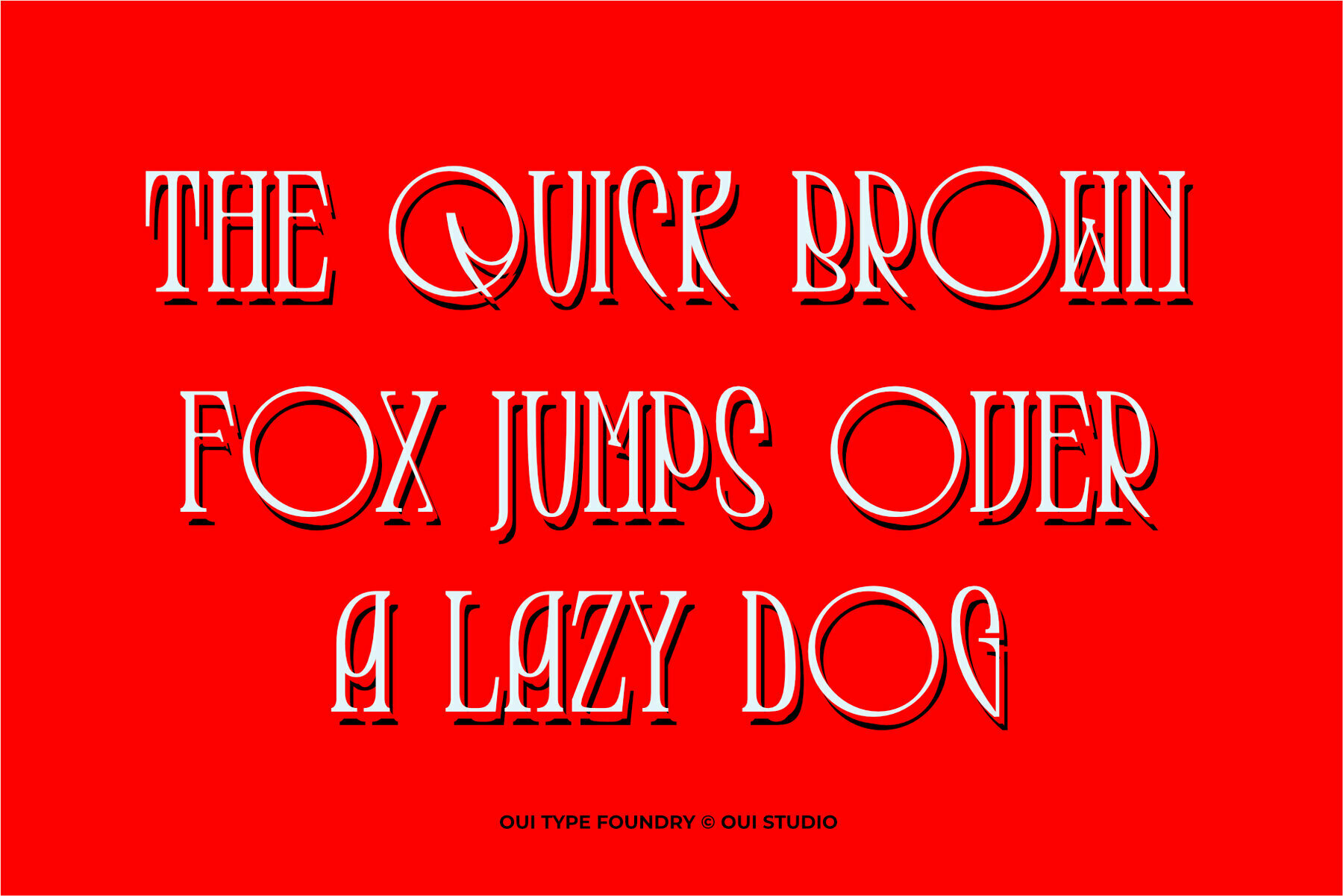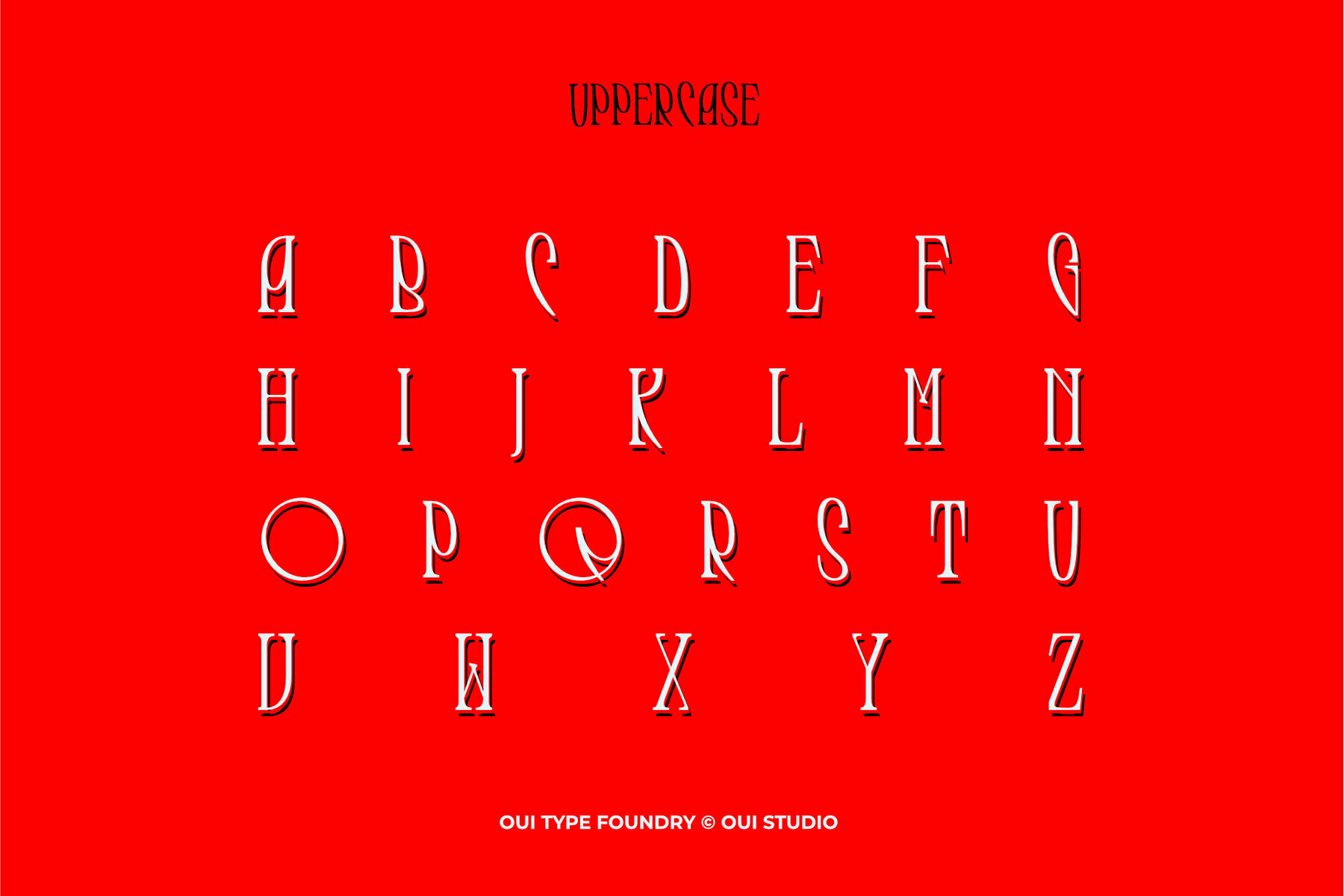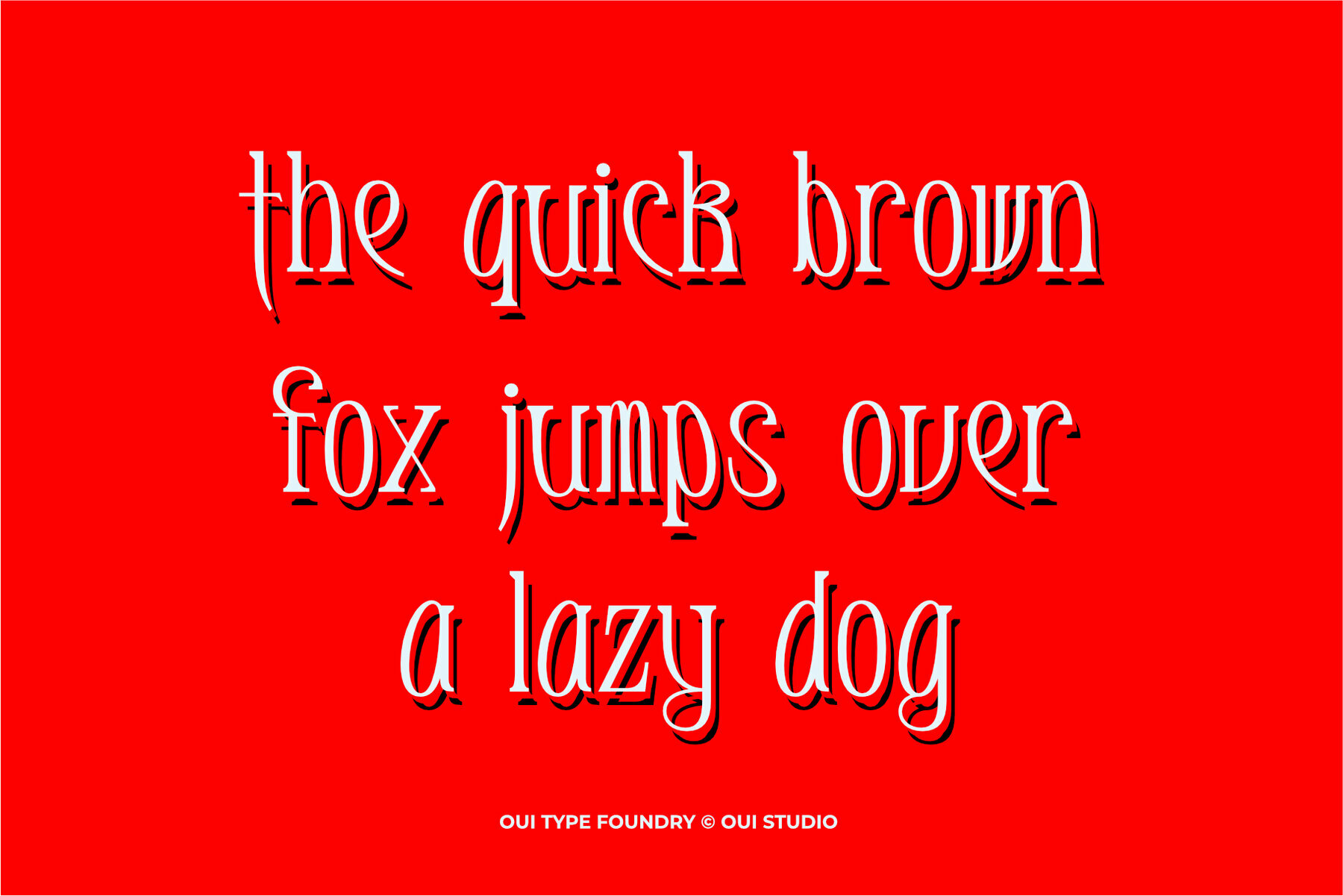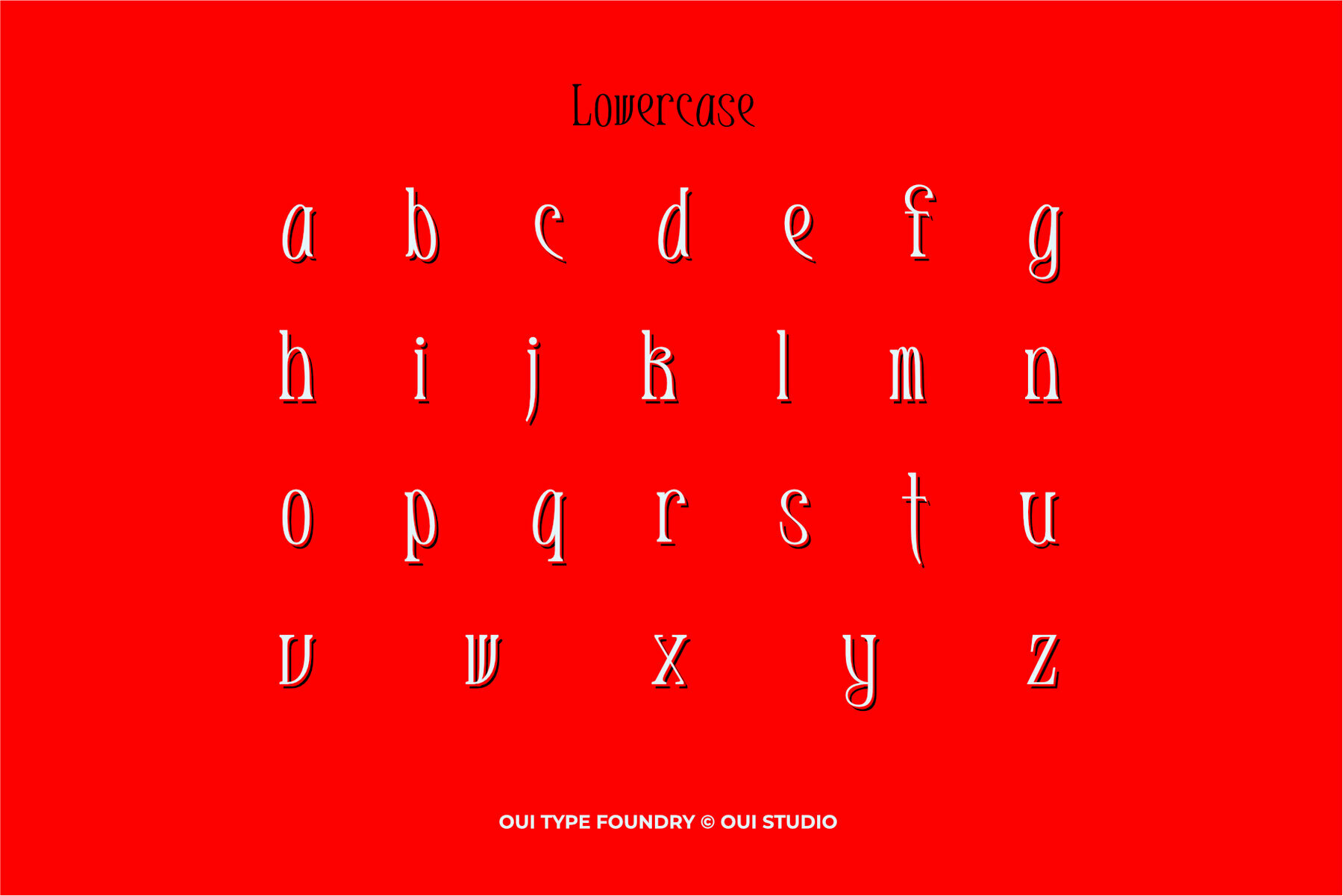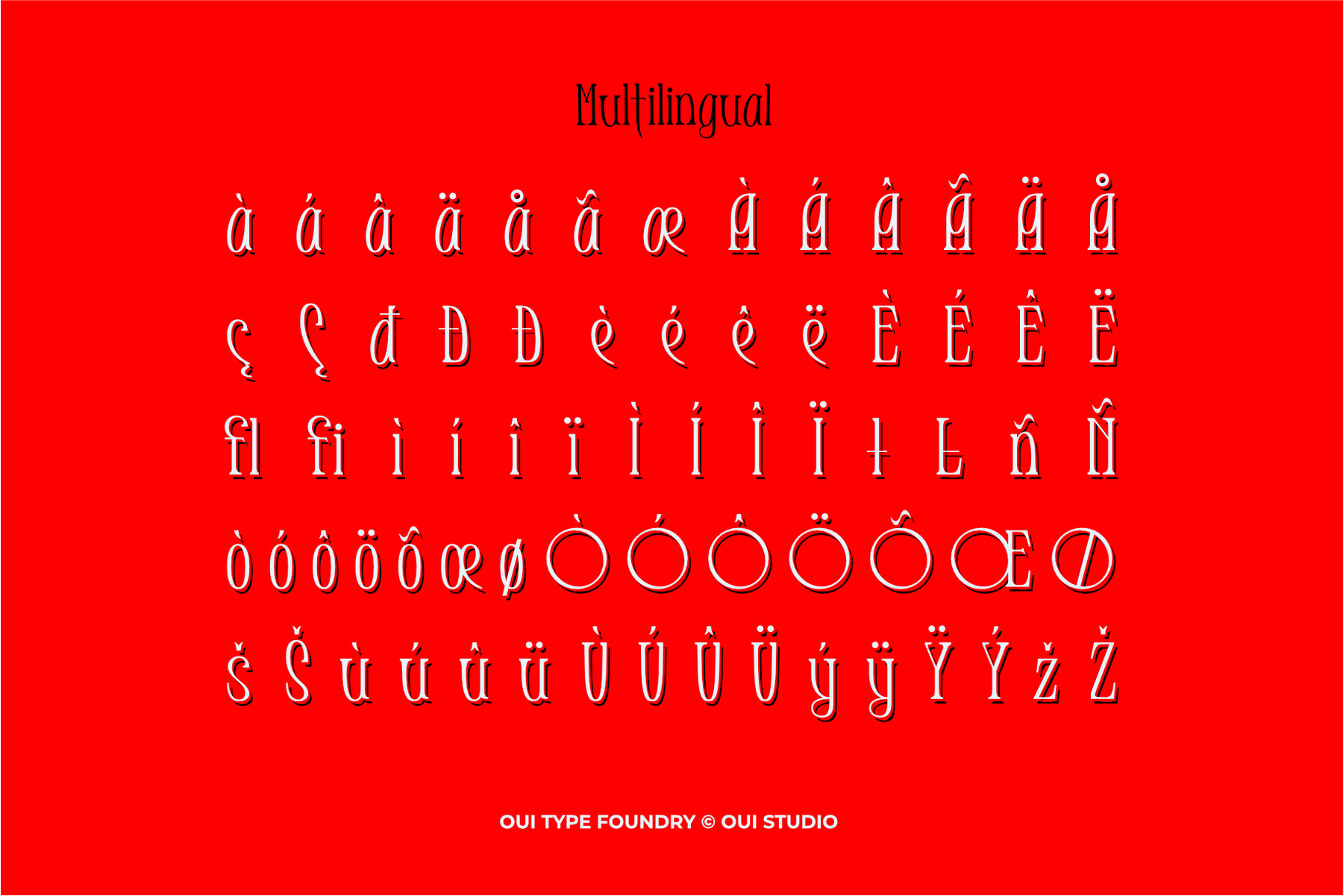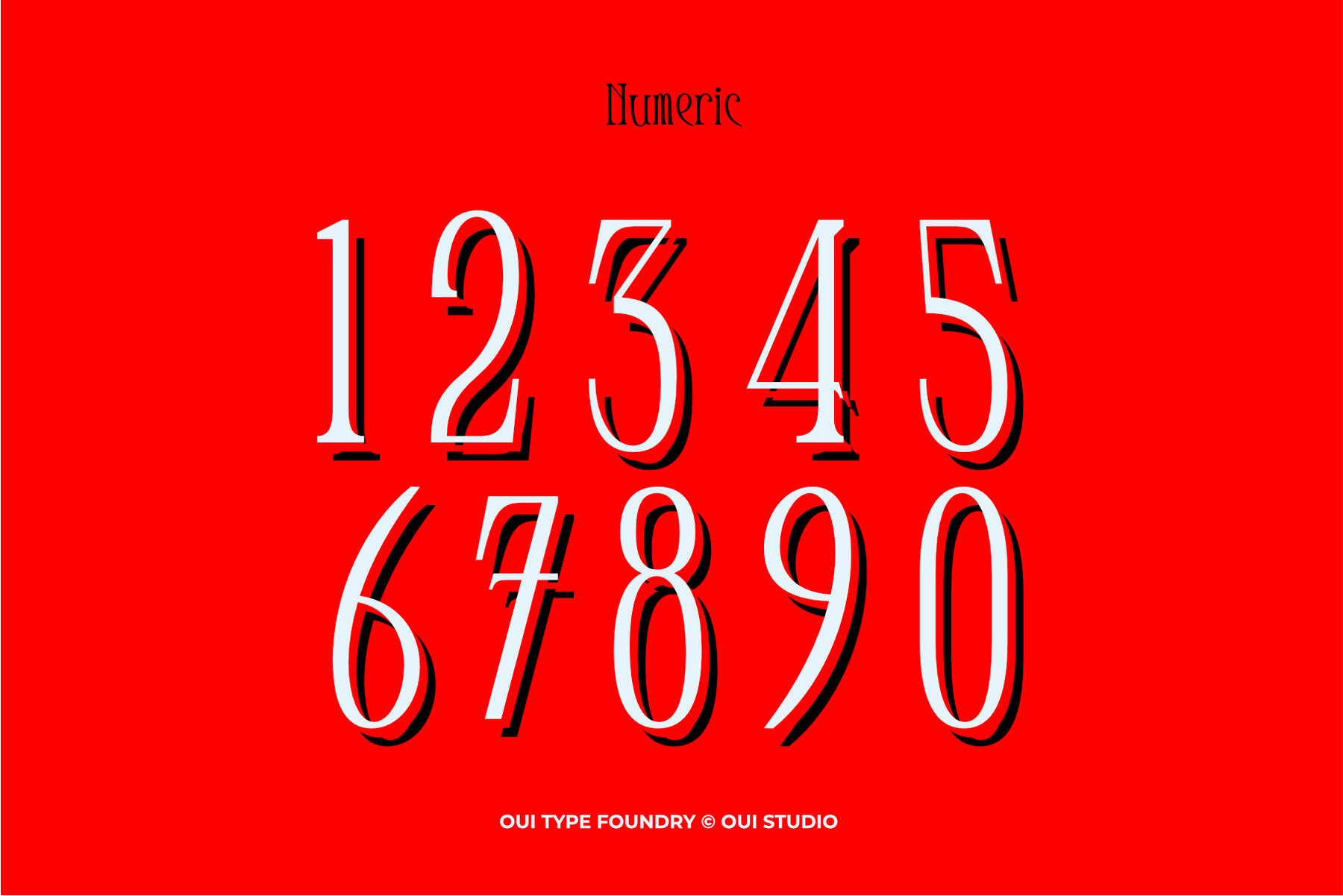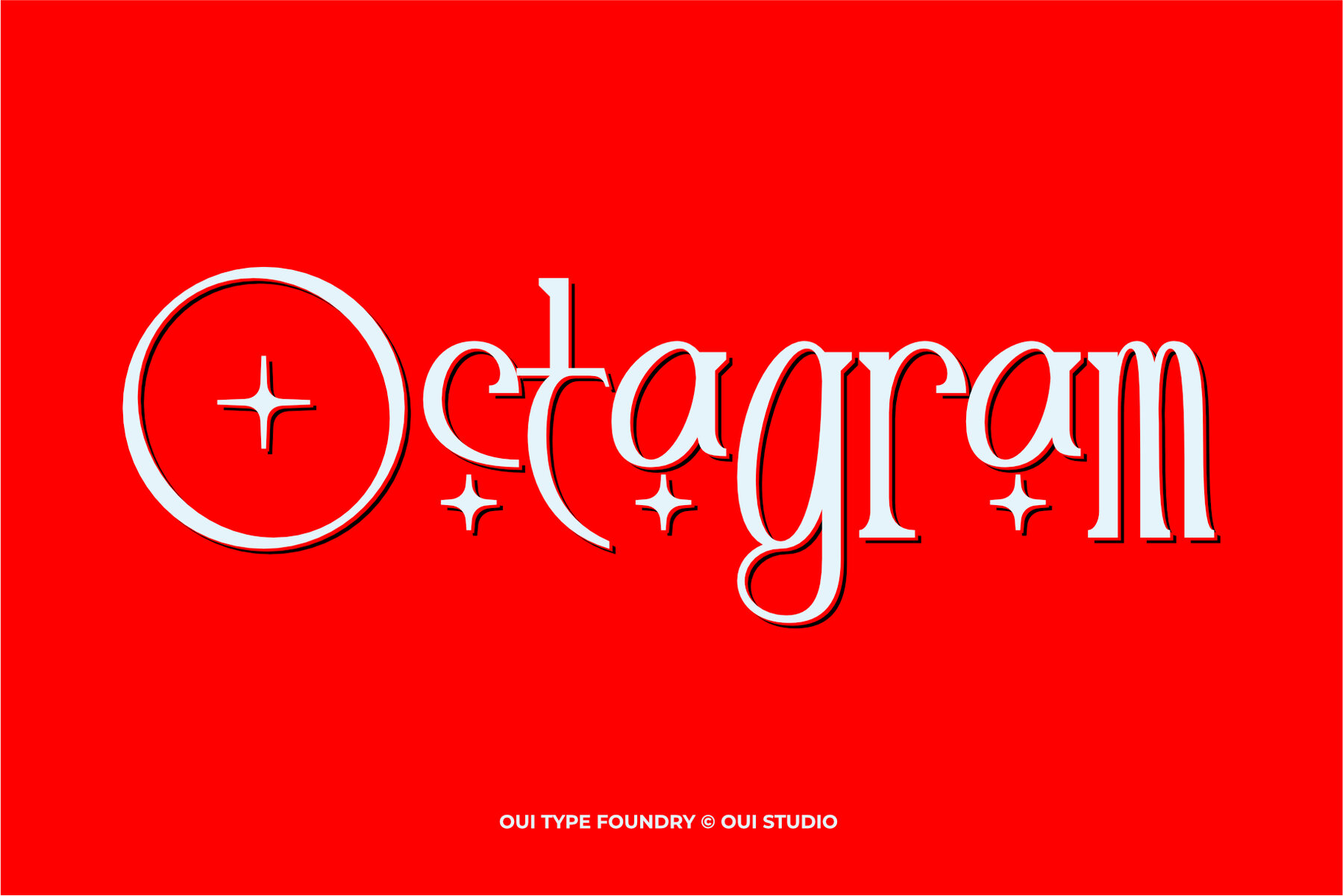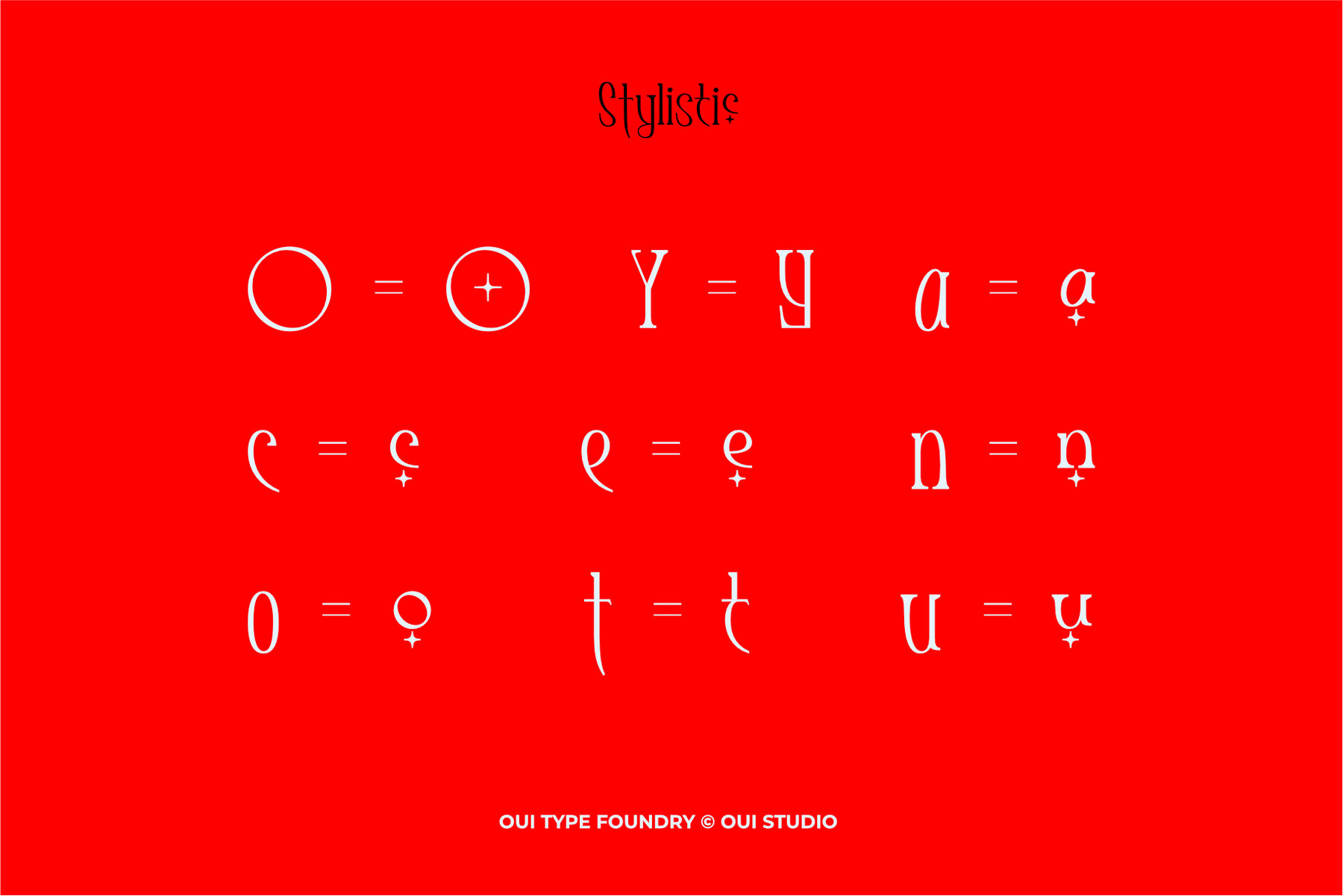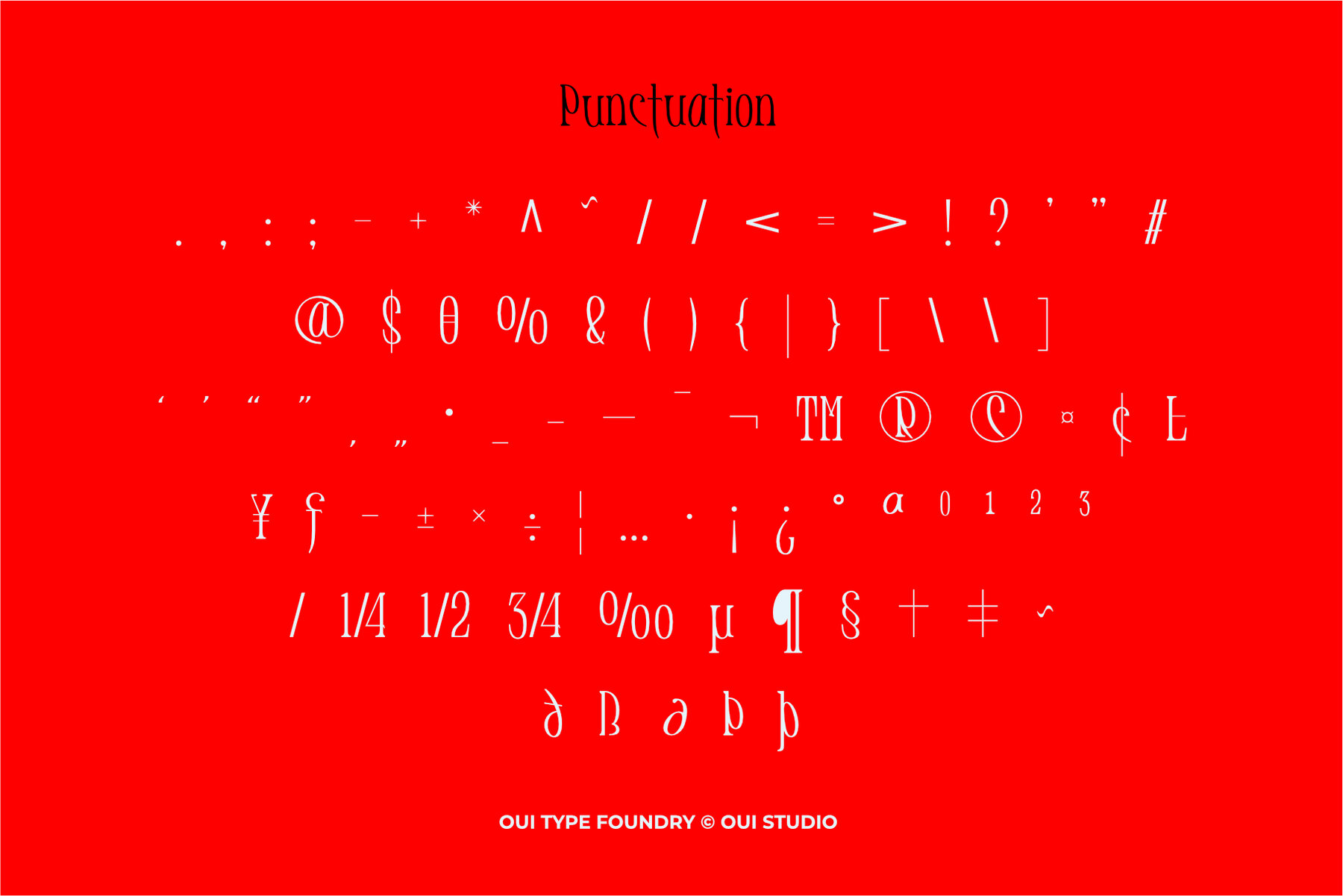
Tyrant Font
Tyrant Regular
Introducing Tyrant, a unique serif display font infused with the elegance of Celtic heritage. Drawing inspiration from the art nouveau movement, Tyrant enriches any project with its distinctive style. This font is ideal for branding, logos, packaging, headers, and more, offering the flexibility needed for modern design challenges.Tyrant: A Celtic-Influenced Serif Display Font
Whether you are crafting a music album cover or designing a standout brand identity, Tyrant stands ready to elevate your creative vision.